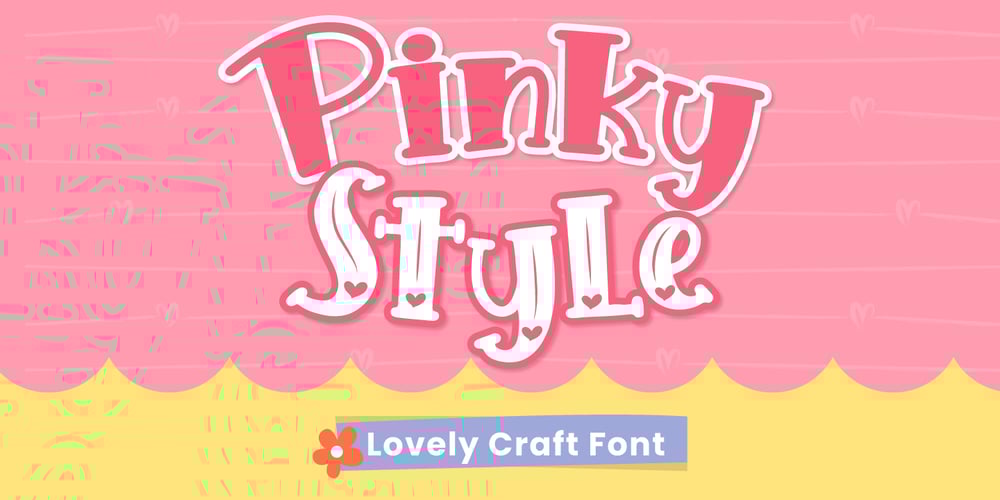
Pinky Style
Pinky Style font
Pinky Style Font Family was designed by Fadli Ramadhan Iskandar and published by Attype Studio. Pinky Style contains 2 styles and family package options. Pinky Style is a Lovely Craft Font display font with heart design. Fall in love with its incredibly versatile style and use it to create spectacular designs!Pinky Style is perfect for branding, logo, invitation, quotes, apparel design, product packaging, merchandise, game titles, cute style design, Book/Cover Title and more.What’s Included :- Multilingual Support – Made it into separated file to make it easier to use by beginner & separated file user can use the font with software which doesn’t accept open type features.